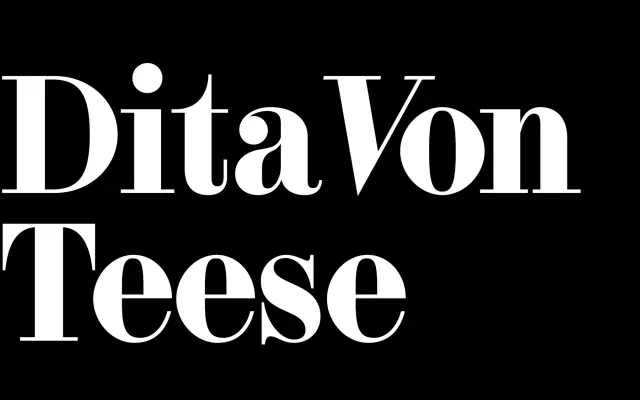
F37 Bella Text
The text optical cut of F37 Bella, tuned for body sizes with matching Cyrillic and Greek companions.
A text optical cut within the F37 Bella system, drawn across four weights with matching italics and extended into Cyrillic and Greek text companions. Bella Text tempers the family's high-contrast didone character for running copy, decks and captions, sitting alongside Bella, Bella Display and Bella Stencil. F37 pair it with F37 Bella in their suggestions, supporting fashion, fragrance, hospitality and editorial systems that want both glamorous display and readable text from a single voice.
F37 present Bella Text as the text optical cut within the Bella system, softening the family's high contrast for body sizes and extending into Cyrillic and Greek companions.